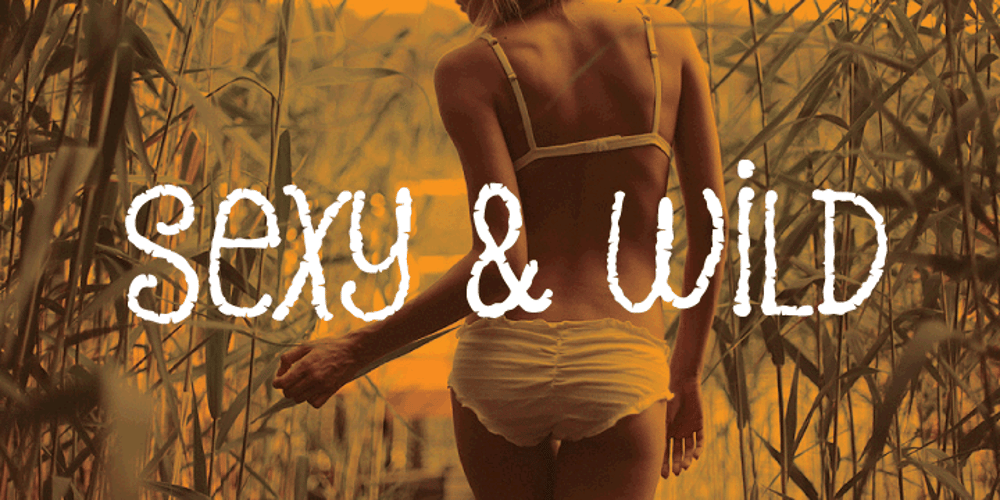
Pantano
Pantano font
Pantano Font Family was designed by – LCF and published by Los Andes. Pantano contains 1 styles and family package options. Pantano is a handmade grunge typeface inspired by the rustic style of Amazonia. Alternate characters and ligatures give a sensual and naturalistic touch to the written word. Photography by Damien Vignaux (www.elroy.fr)